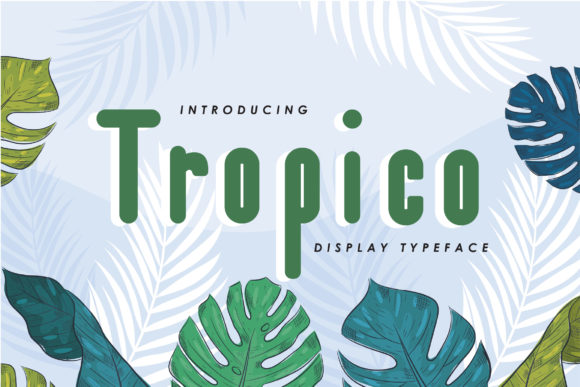
Embark on an extraordinary typographic adventure with Tropico, the font that captures the essence of the nautical spirit! This charismatic display font exudes a captivating allure that will elevate your designs to new heights.
Crafted with the precision of a master brushstroke, Tropico's fluid lines and playful curves evoke the tranquil sway of the ocean waves. Its bold and expressive characters add a touch of whimsy and adventure to any project.
Whether you're a seasoned sailor, a passionate crafter, or a digital design enthusiast, Tropico is the perfect companion for expressing your love for the open sea. Its versatility extends from the animated decks of digital creations to the cozy confines of handmade cards.
With Tropico, you'll have the power to:
- Craft stunning boat lettering that will make your vessel stand out from the crowd
- Create eye-catching presentations that capture the essence of your maritime adventures
- Design greeting cards that carry the warmth and nostalgia of cherished memories by the sea
Tropico is more than just a font; it's a gateway to a world of imagination and expression. Let its vibrant energy inspire your next creative masterpiece and set sail for a journey of typographic wonder!